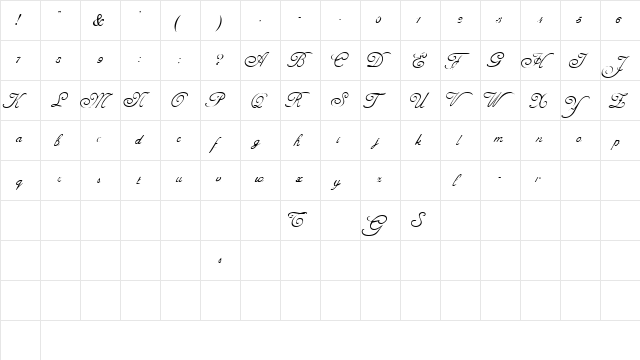
PavillionScriptSSK Regular
Design Context for PavillionScriptSSK Typeface
PavillionScriptSSK flows with the natural rhythm of handwritten lettering, making it ideal for designs that call for warmth and personal expression.
Font Pairing: Combine PavillionScriptSSK with a simple geometric sans for maximum contrast — the tension between flowing curves and clean structure is a classic typographic pairing.
Pro Tip: Pair PavillionScriptSSK with a clean sans-serif for supporting text. The contrast between fluid script and geometric structure creates an elegant typographic hierarchy.